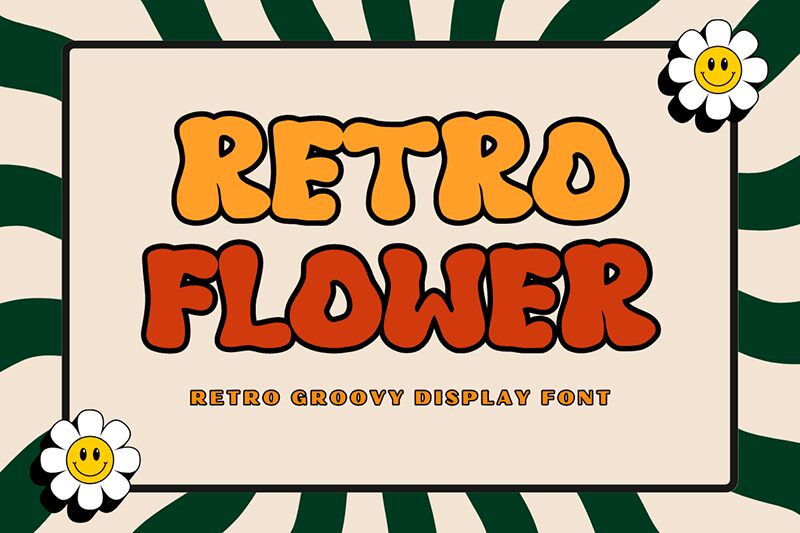
Retro Flower font is a groovy display typeface designed by Muhammad Afif. The bold styles bring 1970s-inspired vibes to your projects with whimsical and original shapes that break decisions about each aspect. While casual and elegant, this free font carries a vintage aesthetic of the past that expresses itself in the most artistic way.
Work must always match function, but such a marvelous font would look amazing on motivational posters, typography art designs, merch designs like t-shirts or mugs, and even albums covers. Use it for headings or large introductory paragraphs on magazines or website pages.